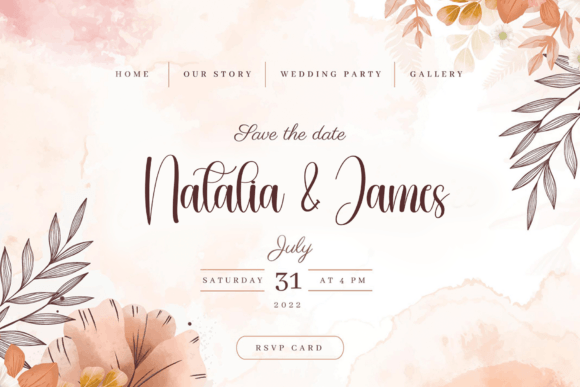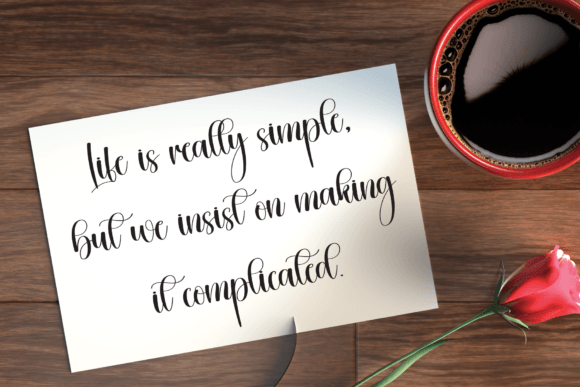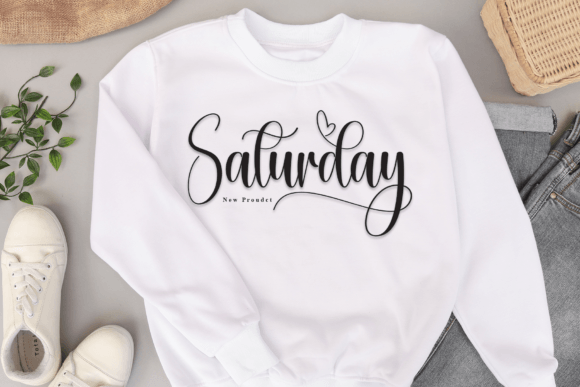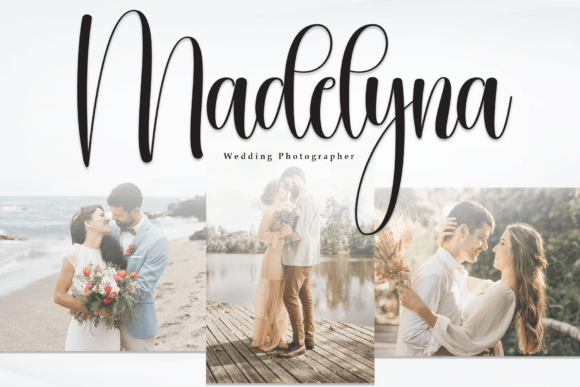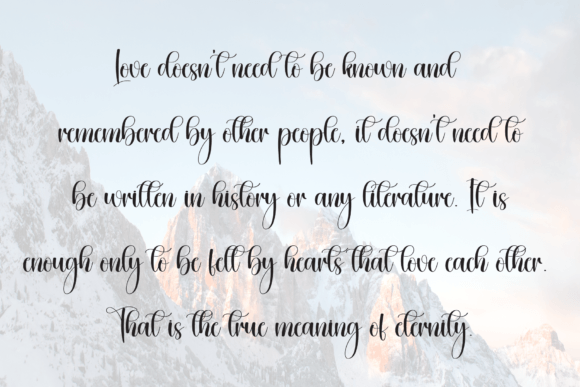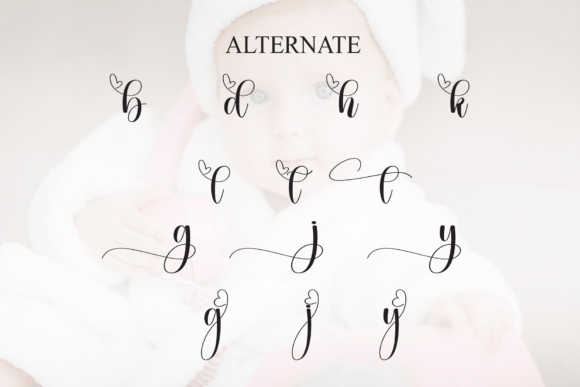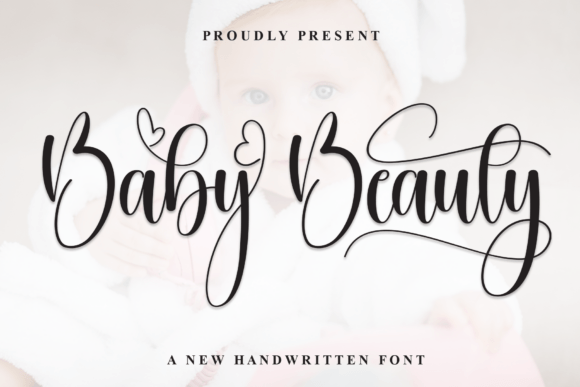
Baby Beauty Font: Elevate Your Designs with Elegance and Sophistication
In the world of design, fonts play a crucial role in conveying the tone and aesthetic of a project. For those seeking a touch of elegance and sophistication, the Baby Beauty Font is an exceptional choice. This stylish and incredibly elegant script font is perfect for a variety of design applications, including wedding invitations, thank you cards, quotes, greeting cards, logos, business cards, and more.
What Makes Baby Beauty Font Stand Out?
Baby Beauty Font is distinguished by its beautiful, flowing script that adds a handwritten touch to any design. Its elegant and refined appearance makes it an ideal selection for designers and crafters aiming to create visually stunning and professional-looking projects. The font’s versatility allows it to be used in a multitude of contexts, from romantic wedding invitations to sophisticated business cards.
Key Features of Baby Beauty Font
- Elegant Script Style: Baby Beauty Font boasts a luxurious and graceful script style that can elevate the look of any project.
- Versatility: Suitable for a wide range of design applications, including wedding invitations, greeting cards, quotes, logos, and business cards.
- Handwritten Touch: Adds a personal and intimate feel to designs, making them more engaging and unique.
- Easy to Read: Despite its elegant and cursive nature, the font remains clear and easy to read, making it practical for various uses.
Uses of Baby Beauty Font
The applications of Baby Beauty Font are vast and varied. Here are some popular uses:
- Wedding Invitations: Create stunning and memorable wedding invitations that set the tone for your special day.
- Greeting Cards: Whether it’s a birthday, anniversary, or holiday greeting, Baby Beauty Font adds a touch of elegance to your cards.
- Quotes and Typography: Use the font to highlight inspirational quotes, poems, or personal messages in a visually appealing way.
- Logos and Branding: For businesses aiming for a sophisticated and luxurious brand image, Baby Beauty Font can be a great choice for logos and marketing materials.
- Business Cards: Stand out with elegant and professional business cards that make a lasting impression.
Tips for Using Baby Beauty Font
To get the most out of Baby Beauty Font, consider the following tips:
- Pair with Complementary Fonts: For optimal results, pair Baby Beauty Font with clean and simple fonts to create contrast and balance in your designs.
- Adjust Letter Spacing: Fine-tune the letter spacing to ensure the text is easy to read and visually appealing.
- Use Appropriate Colors: Choose colors that complement the elegance of the font. Neutral tones, pastels, or rich jewel tones often work well.
- Experiment with Sizes: Don’t be afraid to experiment with different font sizes to create visual hierarchy and emphasize important information.
Baby Beauty Font is a versatile and elegant script font that can add a touch of sophistication and refinement to a wide range of design projects. Its beautiful, flowing script and ease of use make it an excellent choice for designers and crafters looking to create stunning and professional-looking designs. Whether you’re working on wedding invitations, greeting cards, logos, or business cards, Baby Beauty Font is sure to elevate your designs and leave a lasting impression.